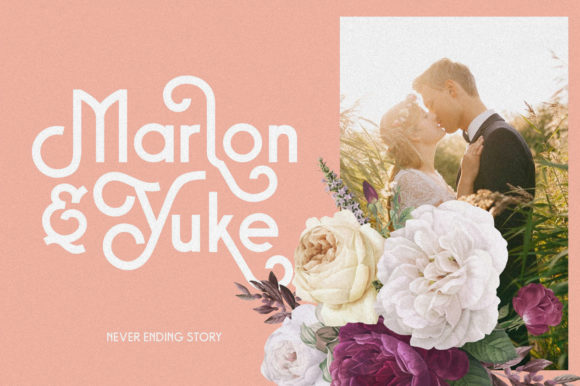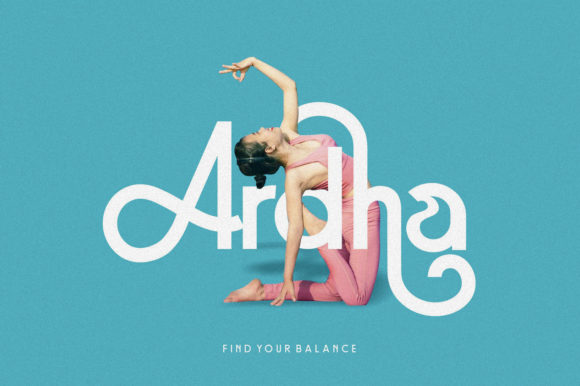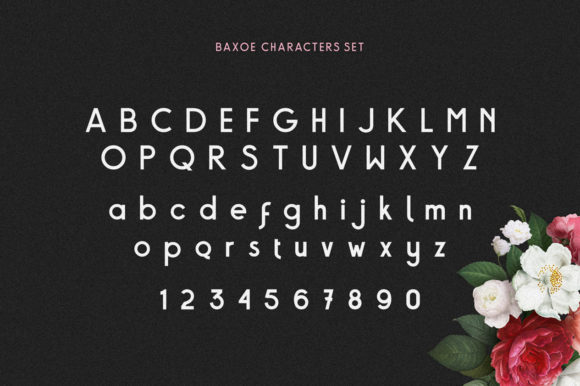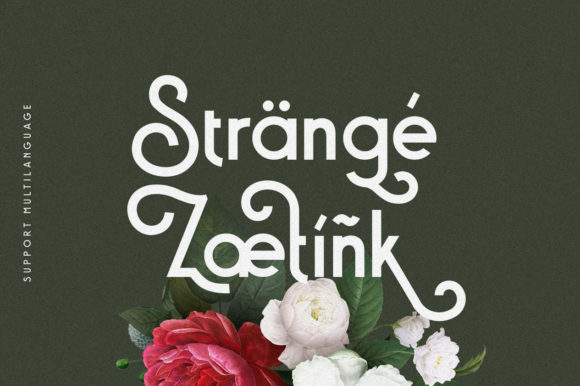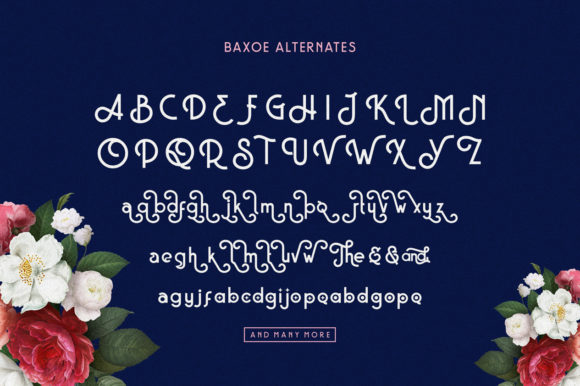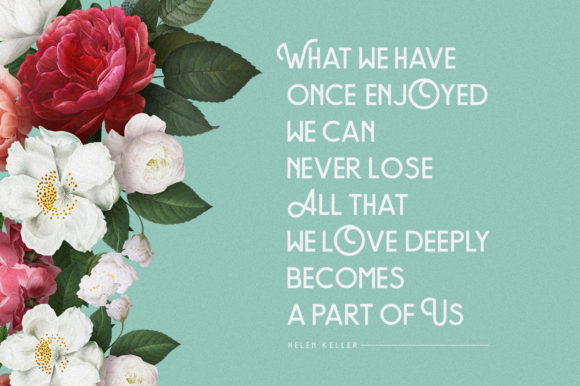
Baxoe Font: Elevate Your Designs with Elegance and Sophistication
In the world of typography, a font can make or break a design. A well-chosen font can elevate your project, add personality, and convey the message you want to communicate. If you’re a designer, crafter, or DIY enthusiast looking for a font that exudes elegance and sophistication, look no further than Baxoe Font. In this article, we’ll dive into the world of Baxoe, exploring its features, benefits, and uses, and why it’s a must-have for any creative project.
What is Baxoe Font?
Baxoe is an elegant and neat lettered sans serif font that has taken the design world by storm. Its clean lines, precise curves, and balanced proportions make it a versatile font that can be used in a wide range of projects. Whether you’re designing a logo, creating a brochure, or crafting a social media graphic, Baxoe Font is the perfect choice.
Key Features of Baxoe Font
- Elegant and Sophisticated: Baxoe Font boasts a sleek and refined aesthetic that’s perfect for designs that require a touch of sophistication.
- Neat and Clean: The font’s sans serif design ensures that your text remains clear and easy to read, even at smaller sizes.
- Highly Versatile: Baxoe Font can be used in a wide range of projects, from branding and advertising to crafting and DIY projects.
- Easy to Read: The font’s balanced proportions and precise curves ensure that your text is easy to read, even for extended periods.
Benefits of Using Baxoe Font
So, why choose Baxoe Font for your next project? Here are just a few benefits of using this elegant font:
- Stand Out from the Crowd: Baxoe Font’s unique blend of elegance and sophistication will help your design stand out in a crowded marketplace.
- Enhance Your Brand: If you’re a business owner, using Baxoe Font can help elevate your brand and convey a sense of professionalism and expertise.
- Easy to Pair: Baxoe Font can be easily paired with other fonts to create a unique and visually appealing typography combination.
- Perfect for Crafters: If you’re a crafter or DIY enthusiast, Baxoe Font is a great choice for projects that require a personal touch, such as handmade cards, invitations, or signs.
Using Baxoe Font in Your Designs
So, how can you use Baxoe Font in your designs? Here are a few ideas to get you started:
- Logos and Branding: Use Baxoe Font to create a sophisticated and elegant logo that reflects your brand’s values and personality.
- Print Materials: Baxoe Font is perfect for print materials, such as brochures, flyers, and business cards.
- Digital Designs: Use Baxoe Font in your digital designs, such as social media graphics, website headers, and email newsletters.
- Crafting and DIY: Baxoe Font is a great choice for crafting and DIY projects, such as handmade cards, invitations, and signs.
In conclusion, Baxoe Font is a versatile and elegant font that’s perfect for designers, crafters, and DIY enthusiasts. Its clean lines, precise curves, and balanced proportions make it a great choice for a wide range of projects. Whether you’re looking to elevate your brand, create a stunning design, or add a personal touch to your crafting projects, Baxoe Font is a must-have. So why wait? Add Baxoe Font to your creative toolkit today and notice how it makes your designs stand out!